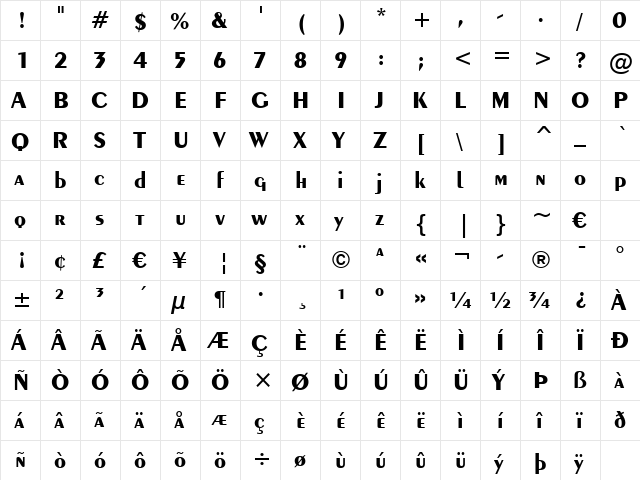
Exotc350 Bd BT Bold
Design Context for Exotc350 Bd BT Typeface
Exotc350 Bd BT is a composed and adaptable typeface that performs quietly and consistently across a wide range of design contexts. Its bold stroke weight gives it real presence on the page.